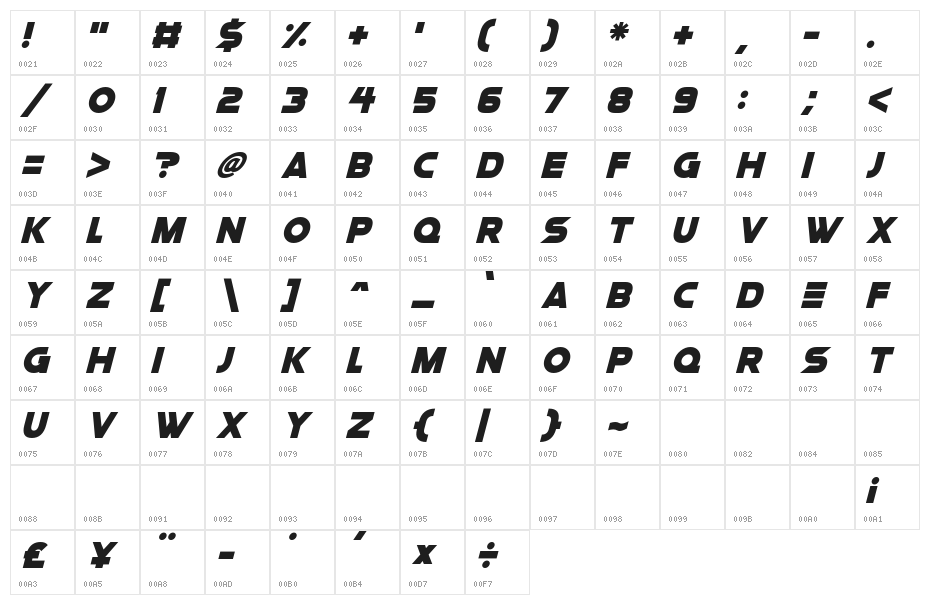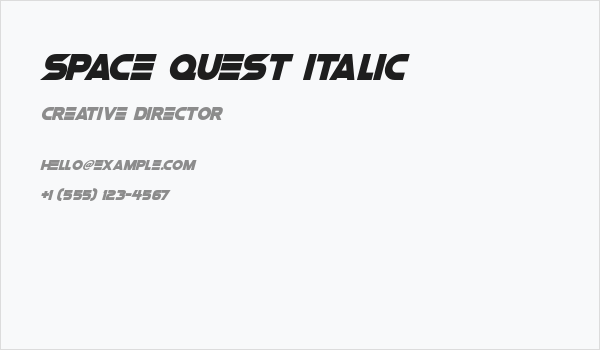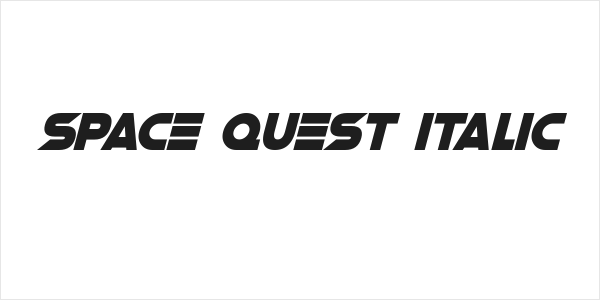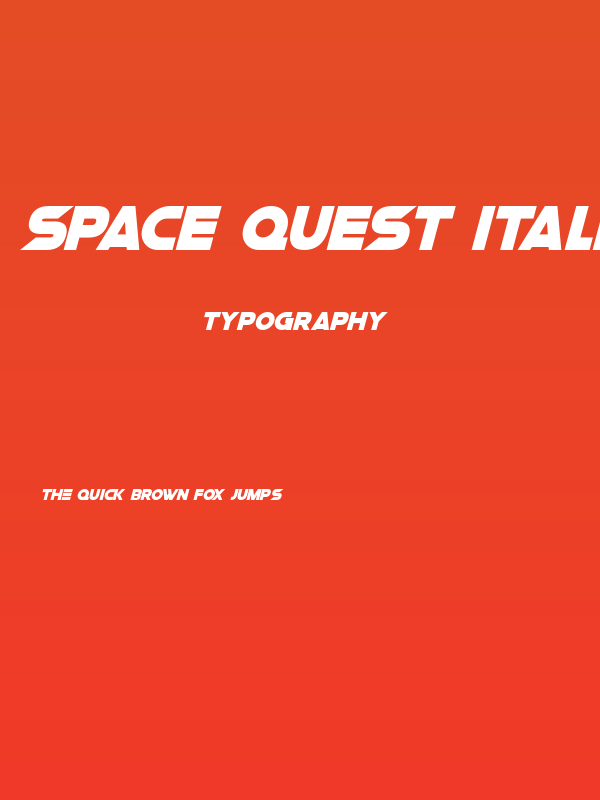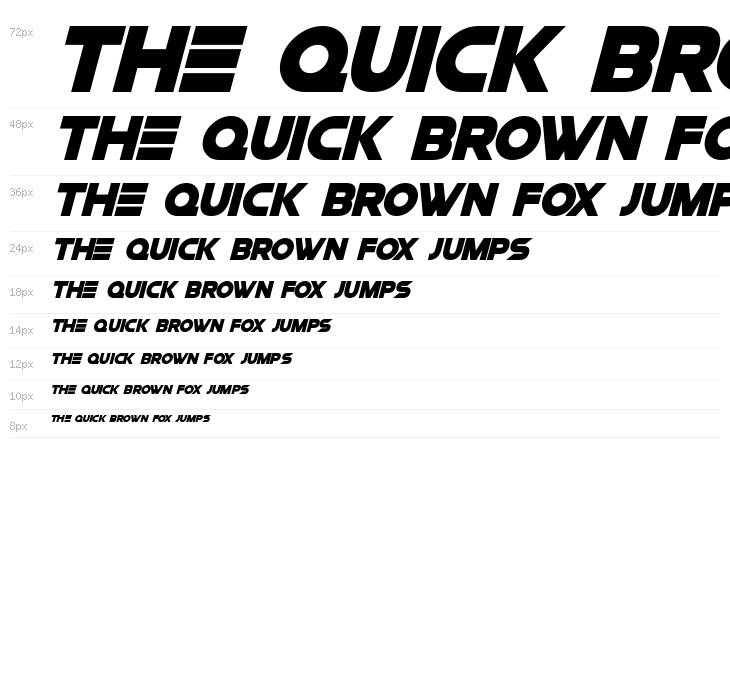
Space Quest Italic Font
Space Quest Italic Description
This font features a bold and dynamic design with a futuristic flair. The characters are italicized, giving them a sense of motion and speed. The strokes are thick and consistent, contributing to a strong visual impact. The design includes unique elements such as slanted cuts and sharp angles, particularly noticeable in letters like 'A', 'E', and 'F'. The numbers and special characters maintain the same bold style, ensuring uniformity across all glyphs. This font is ideal for projects that require a modern and energetic aesthetic.
| Proposed Projects | Perfect for sci-fi themed designs, video game titles, technology branding, and dynamic posters. |